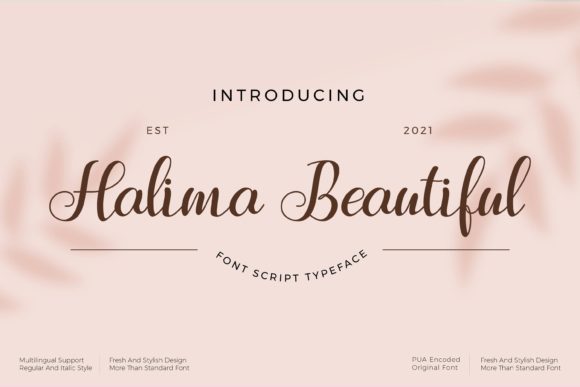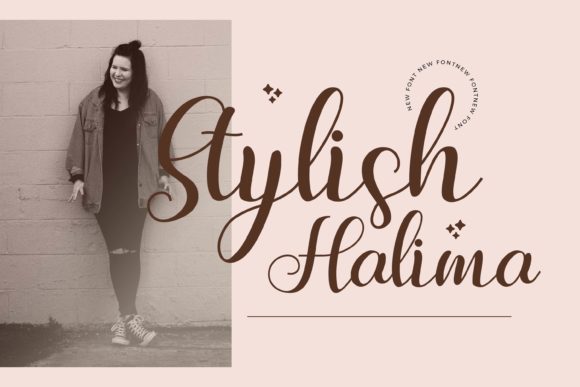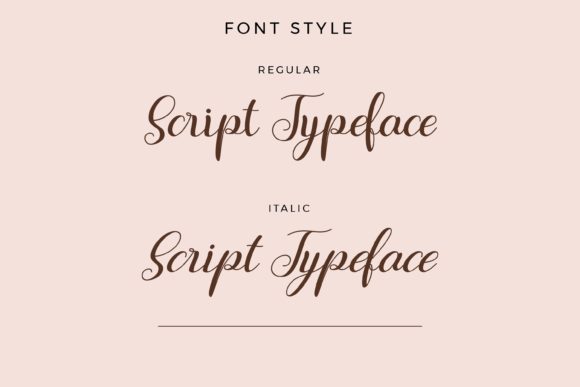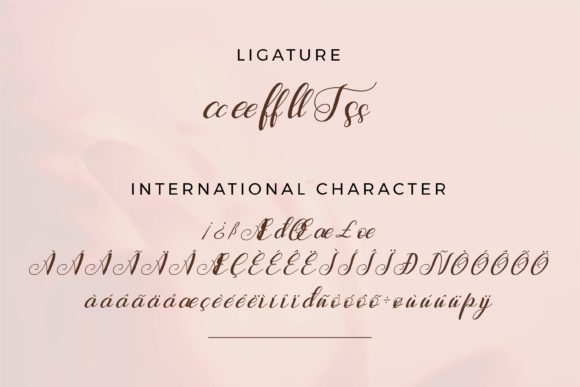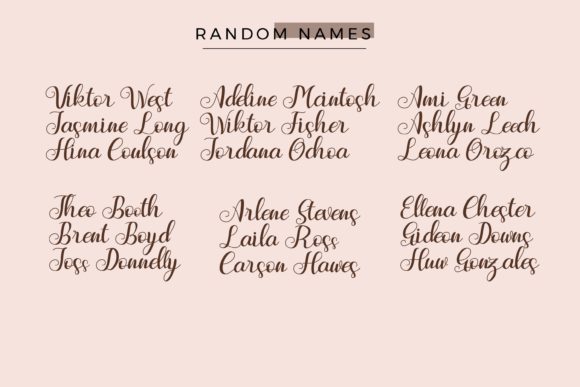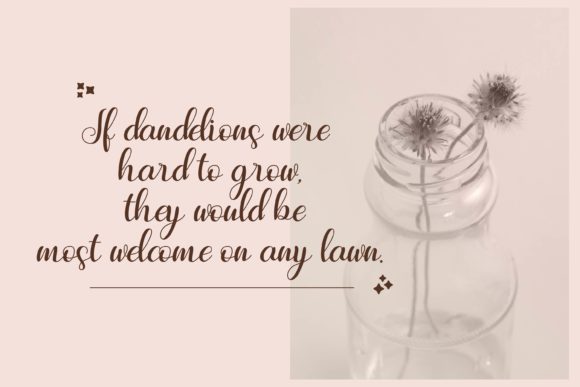
Halima Beautiful Font
About Halima Beautiful Font
Halima Beautiful is a lovely and delicate script font that exudes elegance and class. This font was particularly crafted for those who need a beautiful and refreshing look to their designs.